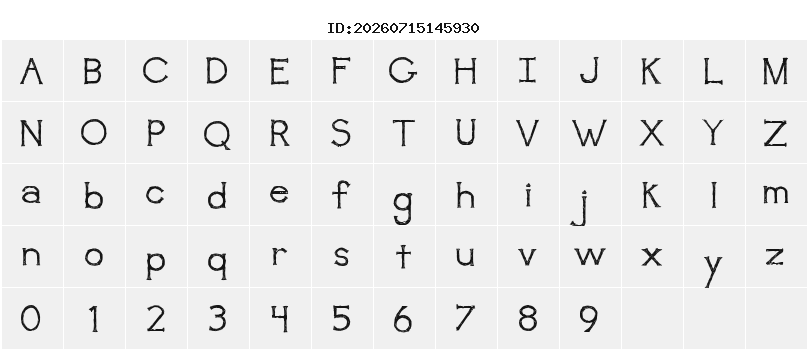
• Designer: Brittney Murphy
About awakening.ttf
awakening.ttf is a modern, elegant sans-serif font designed for ultimate readability and visual harmony. Perfect for branding, headlines, web design, and print materials.